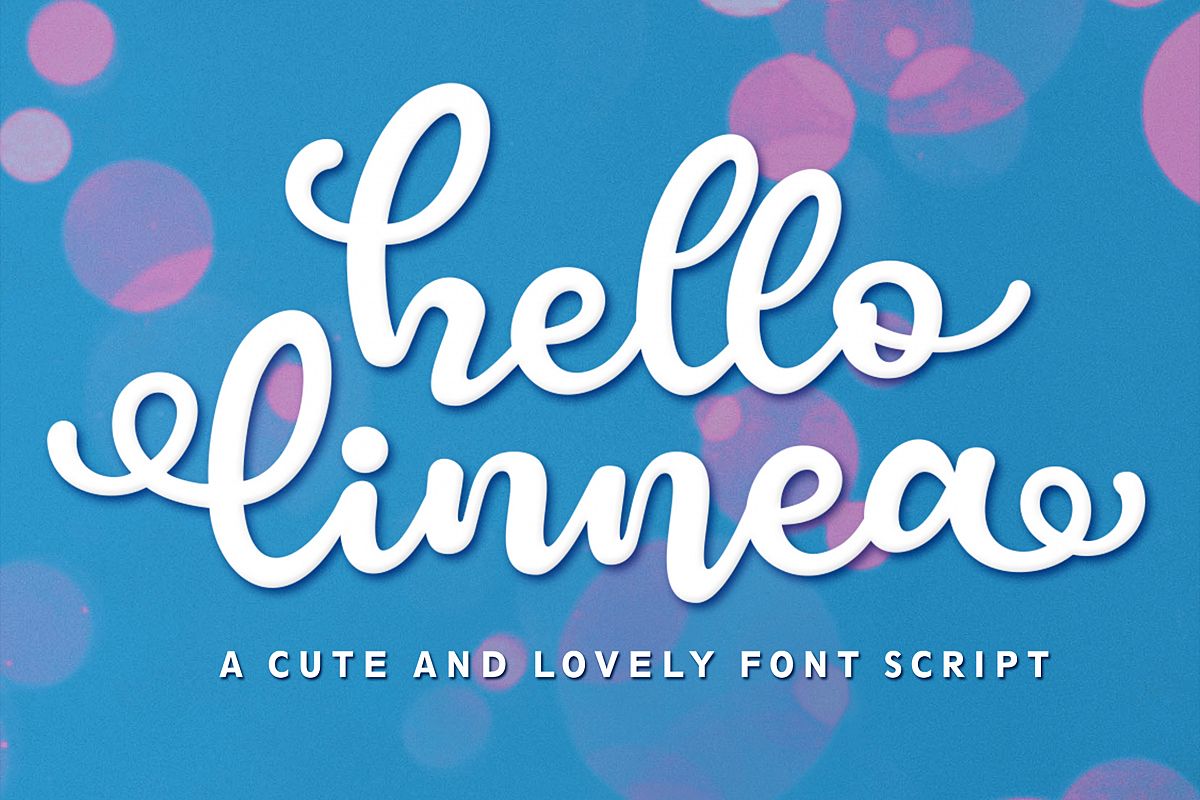
Hello Linnea
The Hello Linnea is a fun and lovely script font. It has a great readability and will add a fun and playful touch to any design.It’s great for branding, logo designs, lettering, logotype, clothing, posters, magazines, and much more! -  Hello Linnea Script - OTF/TTF/WOFFI hope you enjoy this font. If you have any questions please don't hesitate to drop me a message :) Thank You, Subectype